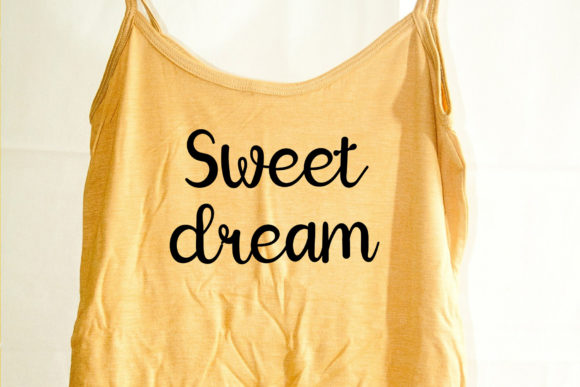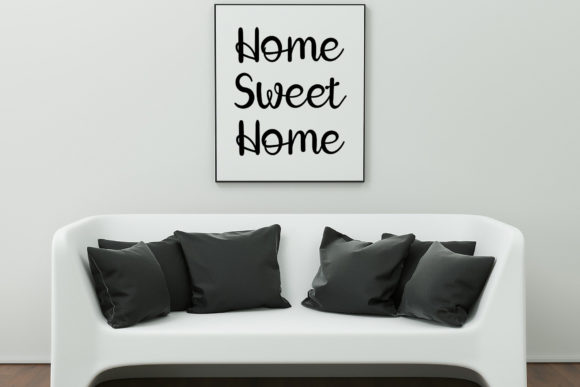
Stickers Hearts Font
db-ku.com - Script & Handwritten -- Stickers Hearts is a simple and flowing script font, perfect to be used on your invitation cards, greeting cards, party events, billboards, logos, business cards and any other design that requires a clean touch. This font features varied baselines, fine lines, beautiful glyphs and makes your ideas look exquisite and complementary to your work.